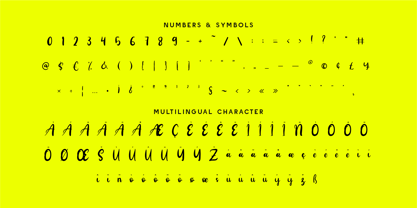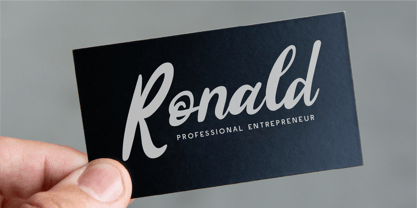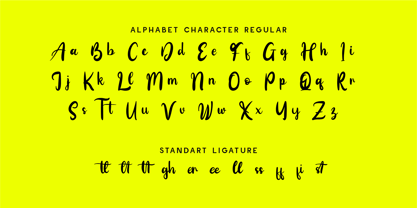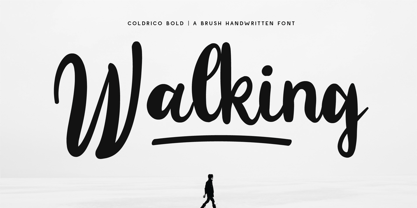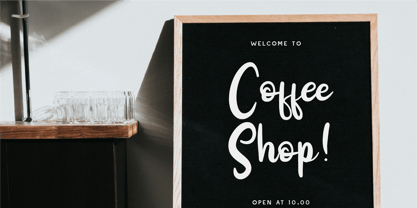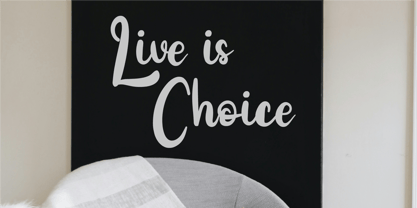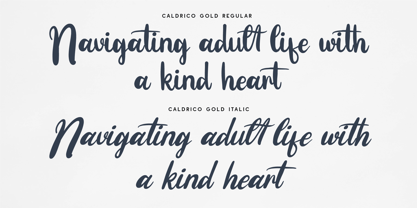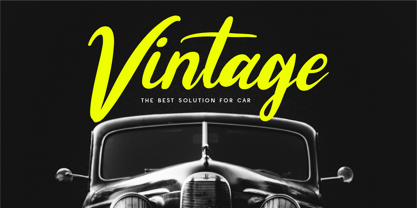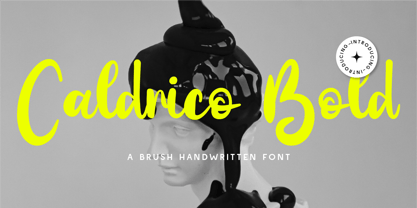
CF Caldrico Bold
by Indotype
The CF Caldrico Bold Font Family was designed by Gilang Mei Nugraha, Frederik Aristaputra and published by Indotype. CF Caldrico Bold contains 2 styles and family package options. More about this family
Caldrico Bold – A Striking Brush Handwritten Font
Unleash the energy of Caldrico Bold, a high-impact brush handwritten font designed for those who dare to stand out. With its bold strokes, fluid movement, and expressive letterforms, this typeface brings raw personality and artistic flair to any project.
Perfect for branding, streetwear, advertising, product packaging, social media, and edgy editorial designs, Caldrico Bold exudes confidence and creativity. The handcrafted brush texture adds a natural yet rebellious vibe, making your words feel alive with motion and style.
Why Choose Caldrico Bold?
⚡ Bold & Expressive: Eye-catching brush strokes that demand attention.
🎨 Handcrafted Energy: A perfect mix of natural flow and urban edge.
🔥 Versatile & Impactful: Ideal for logos, posters, album covers, and more.
🖋 Authentic Brush Texture: Organic strokes that bring life to your designs.
- Standard Character A-Z, a-z, 0-9, Punctuation & symbols
- Regular and Italic
Designers: Gilang Mei Nugraha, Frederik Aristaputra
Foundry: Indotype